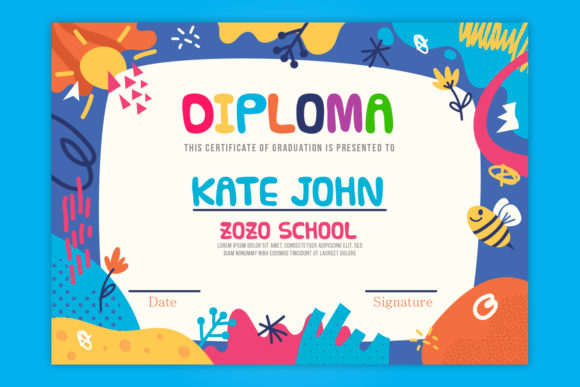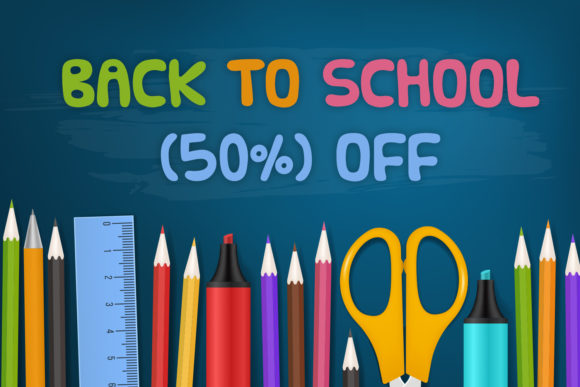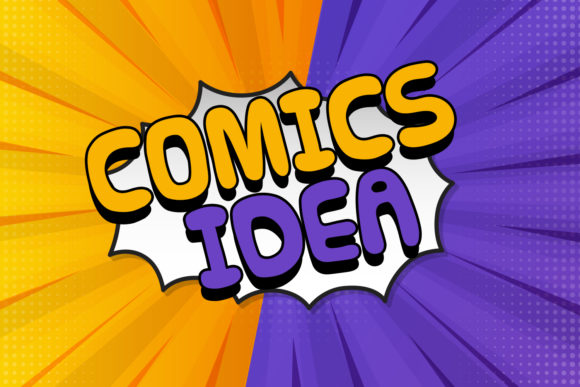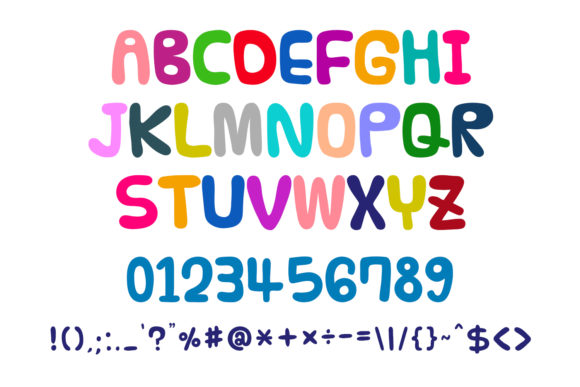
Aso Kids Font: The Perfect Addition to Your Kids’ Projects
Are you a designer, crafter, or parent looking for a fun and playful font to add to your kids’ projects? Look no further than Aso Kids Font! This bold and chunky lettered display font is perfect for adding a touch of childlike playfulness to any project. In this article, we’ll take a closer look at Aso Kids Font and explore its features, benefits, and uses.
What is Aso Kids Font?
Aso Kids Font is a display font designed to bring a sense of fun and playfulness to any project. Its bold and chunky letters are reminiscent of children’s handwriting, making it perfect for kids’ projects, school assignments, and even DIY crafts. The font is highly versatile and can be used for a wide range of applications, from posters and flyers to stickers and crafts.
Features of Aso Kids Font
Aso Kids Font has several features that make it an excellent choice for designers and crafters. Some of its key features include:
- Bold and Chunky Letters: Aso Kids Font features bold and chunky letters that are perfect for creating eye-catching headlines and titles.
- Childlike Playfulness: The font’s playful and childlike design makes it perfect for kids’ projects and school assignments.
- Highly Versatile: Aso Kids Font can be used for a wide range of applications, from digital designs to print projects.
- Easy to Read: Despite its bold and chunky design, Aso Kids Font is easy to read, making it perfect for use in titles, headings, and body text.
Benefits of Using Aso Kids Font
There are several benefits to using Aso Kids Font in your designs and crafts. Some of the benefits include:
- Adds a Touch of Whimsy: Aso Kids Font adds a touch of whimsy and playfulness to any project, making it perfect for kids’ projects and school assignments.
- Perfect for Kids’ Projects: The font’s childlike design makes it perfect for use in kids’ projects, such as posters, flyers, and crafts.
- Increases Engagement: The font’s bold and chunky design makes it perfect for use in titles and headings, increasing engagement and attention.
Uses of Aso Kids Font
Aso Kids Font can be used in a wide range of applications, including:
- Kids’ Projects: Aso Kids Font is perfect for use in kids’ projects, such as posters, flyers, and crafts.
- School Assignments: The font’s childlike design makes it perfect for use in school assignments, such as book reports and presentations.
- DIY Crafts: Aso Kids Font can be used in DIY crafts, such as making stickers, cards, and other paper crafts.
- Digital Designs: The font can be used in digital designs, such as social media graphics, blog posts, and website designs.
Aso Kids Font is a bold and chunky lettered display font that is perfect for adding a touch of childlike playfulness to any project. Its highly versatile design makes it perfect for use in kids’ projects, school assignments, DIY crafts, and digital designs. With its easy-to-use design and highly legible letters, Aso Kids Font is an excellent choice for designers and crafters of all levels. So why not give Aso Kids Font a try and see how it can brighten up your kids’ projects and school assignments?